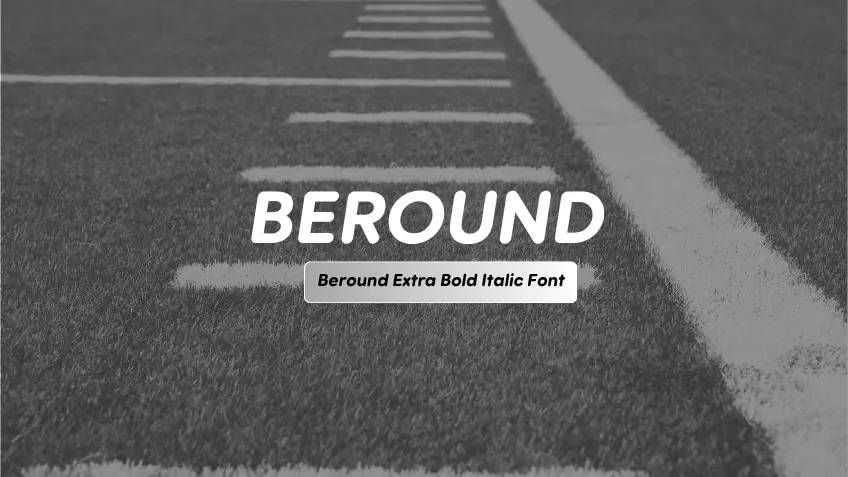
Beround Extra Bold Italic
Beround Extra Bold Italic Font
The font Beround Extra Bold Italic, designed by Nikolay Savchuk, falls under the Sans Serif category & Beround font family. Its smooth, flowing letterforms make it a versatile choice for projects that require both elegance and readability. Beround is particularly well-suited for Packaging, Headlines, Advertising, User Interface (UI) Design and Branding and Corporate Identity. With its balance of simplicity and decorative appeal, this font brings a polished touch to both personal and professional designs.